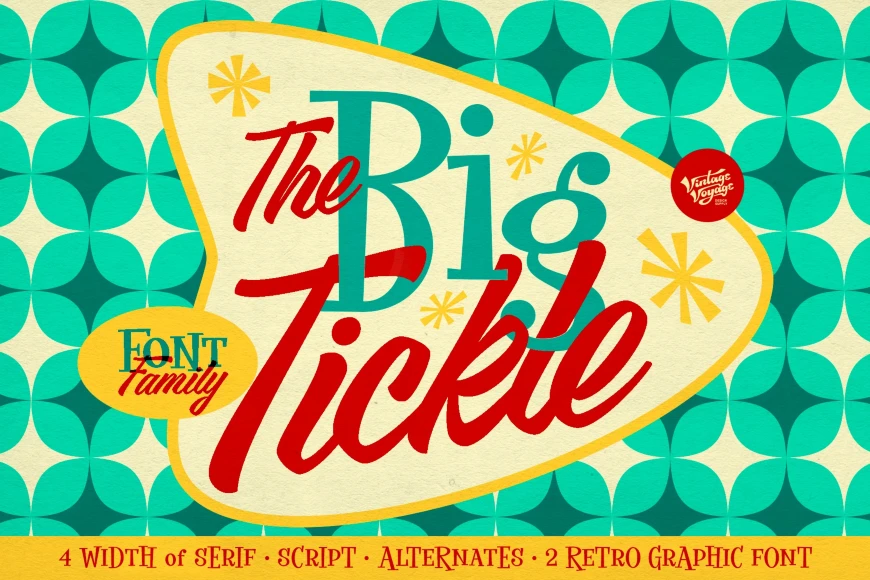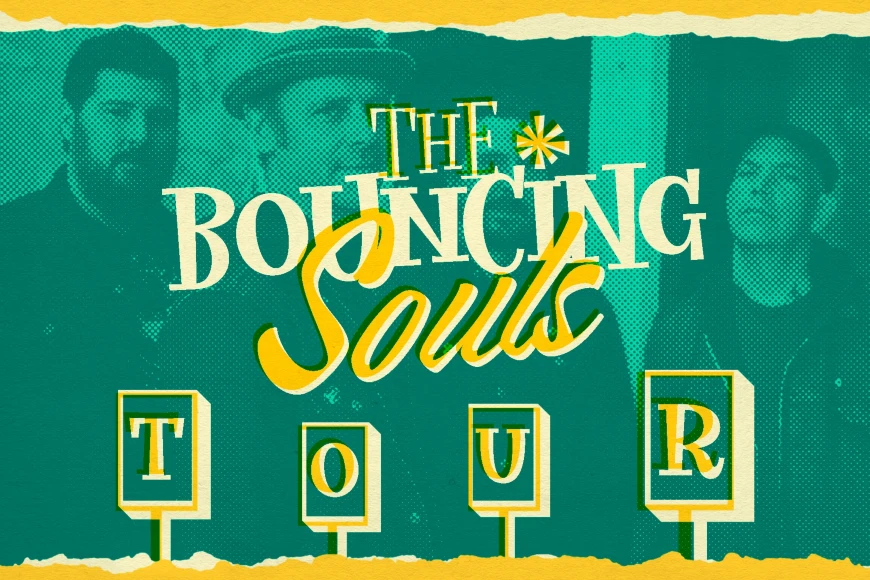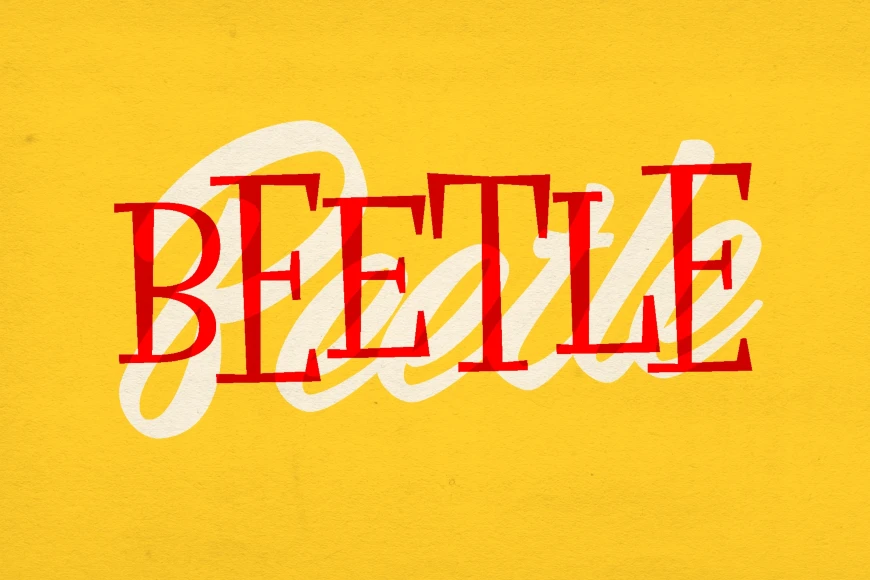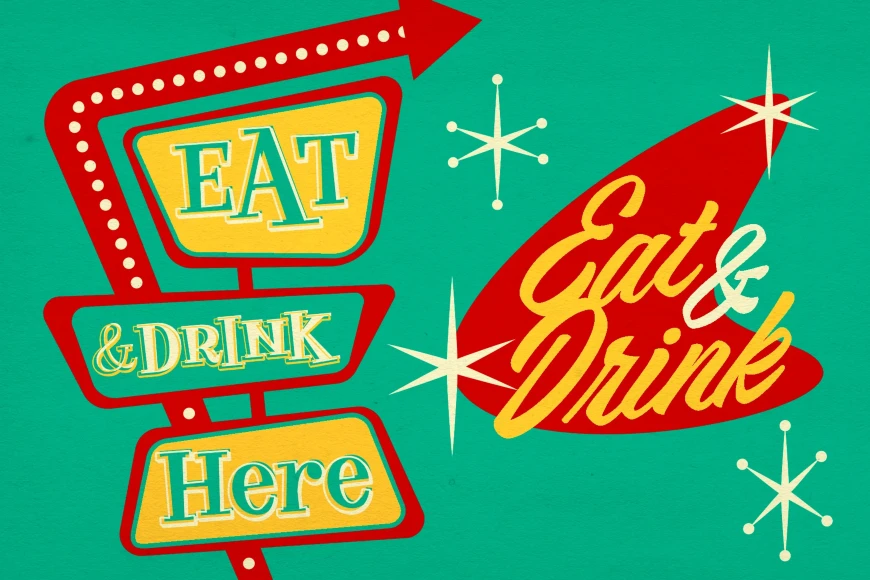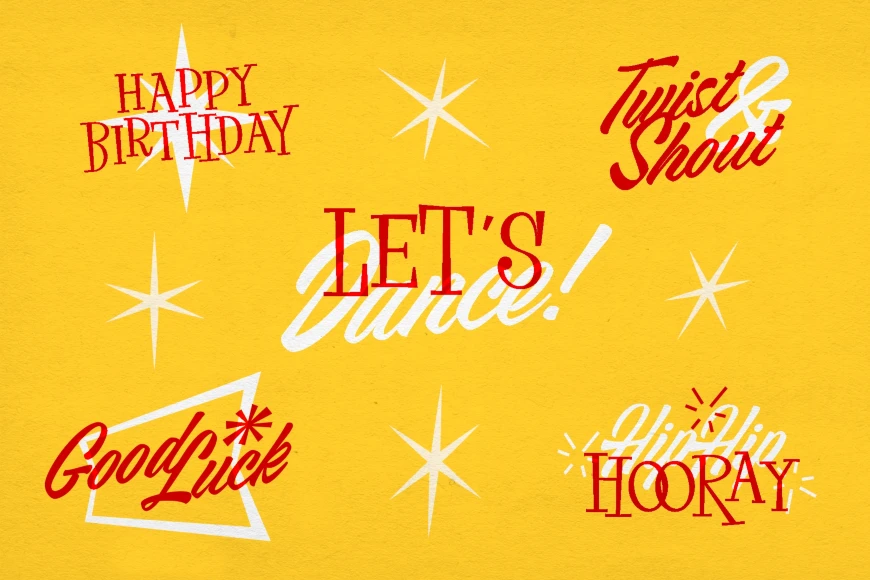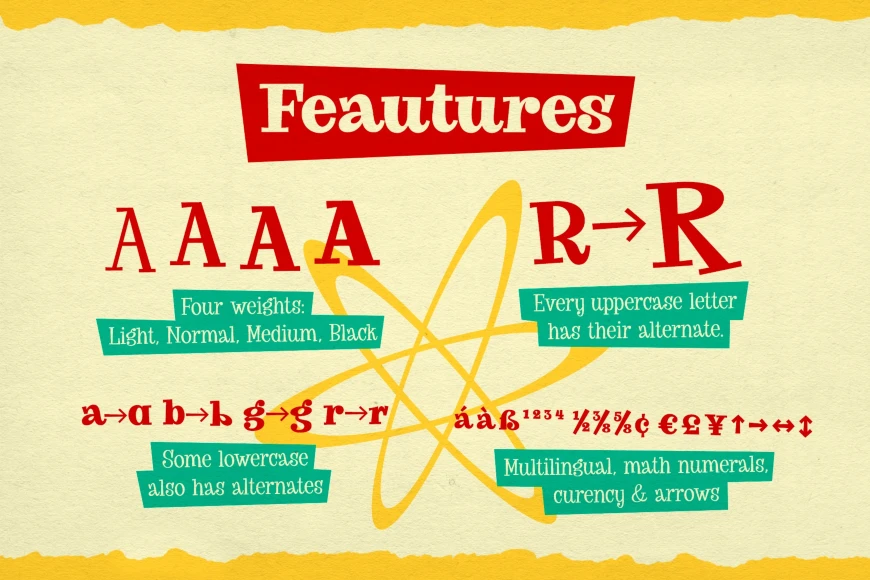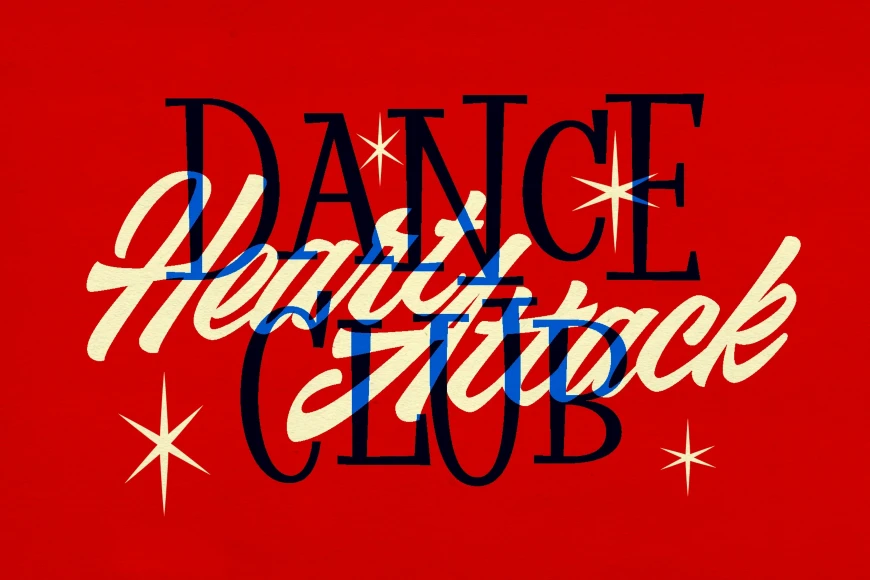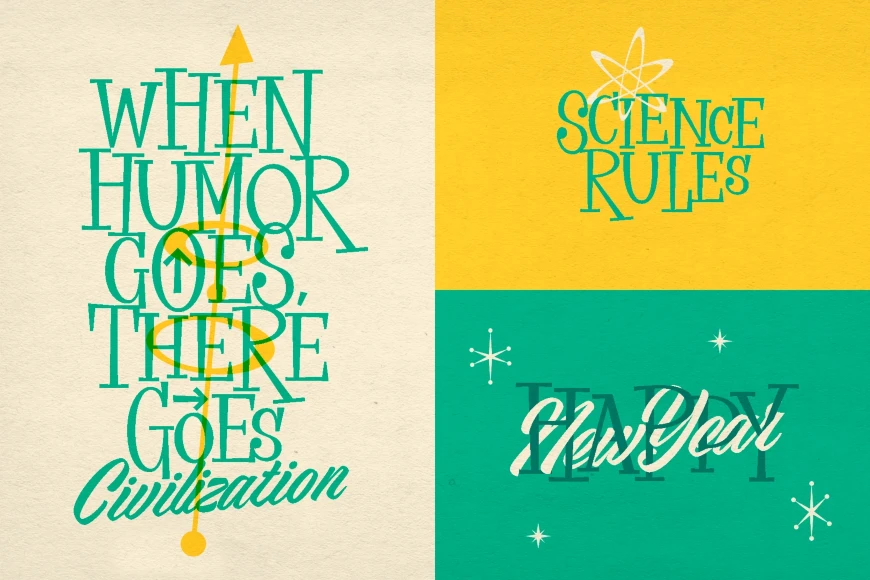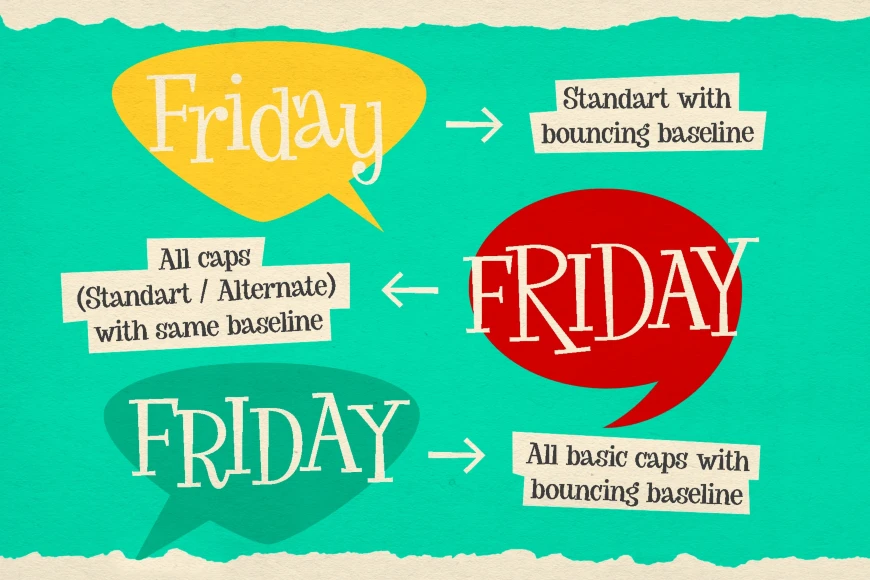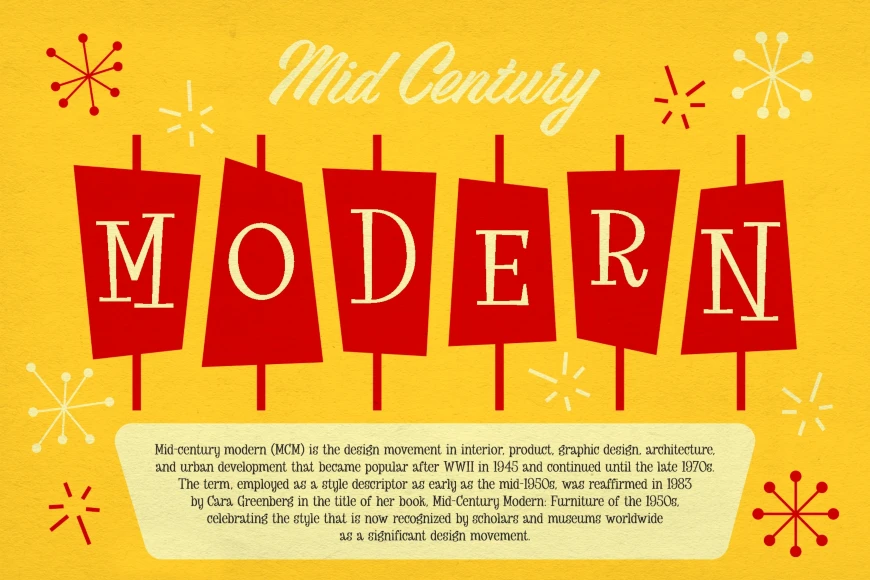
Big Tickle
Big Tickle Hatched Light
Big Tickle Light
Big Tickle Shadow Light
Big Tickle Hatched Normal
Big Tickle Normal
Big Tickle Shadow Regular
Big Tickle Hatched Medium
Big Tickle Medium
Big Tickle Shadow Medium
Big Tickle Black
Big Tickle Hatched Black
Big Tickle Shadow Black
The Big Tickle is a playful serif font family inspired by the smooth jazz of the 1950s and the energetic Rock’n’Roll of the 1960s. Features a wide range of weights for consistent visual color across different sizes. Works well in both standard and all-caps settings. Bouncing baselines and alternate uppercase letters add extra movement and charm. Great for lively compositions, retro posters, headlines, and fun branding. Includes decorative versions like Inner Hatched and Offset with Shadow for added variety. Made for designs that need rhythm, joy, and a touch of nostalgia.